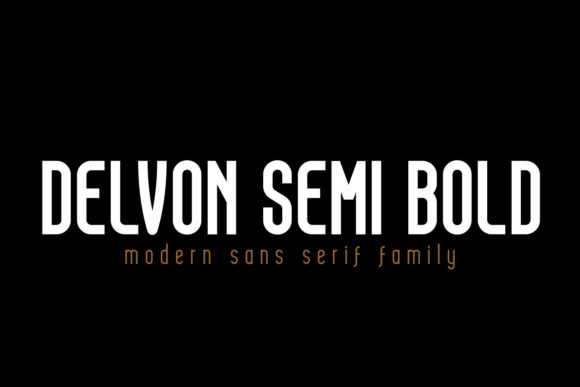
Feast your eyes on Delvon Semi Bold, a sans serif font that exudes charm and sophistication. Its meticulously crafted letterforms dance across the page, captivating your audience with their elegant simplicity.
Unleash your creativity with Delvon Semi Bold, the perfect font for song titles. Its bold, confident strokes command attention, ensuring your music's name leaves a lasting impression. Whether it's a soulful ballad, a rocking anthem, or a catchy pop tune, Delvon Semi Bold amplifies the essence of your song, making it unforgettable.
Step into a world of endless possibilities with Delvon Semi Bold, a font that complements a myriad of projects. Its versatility knows no bounds, effortlessly enhancing everything from logos and branding to social media graphics and website designs. With Delvon Semi Bold, your creations will shine brighter than the stars, leaving a trail of brilliance wherever they go.
Immerse yourself in the beauty of Delvon Semi Bold, a font that evokes emotions and ignites imaginations. Its smooth curves and crisp lines create a visual symphony that captivates the senses. Let your words dance with Delvon Semi Bold, expressing your thoughts and ideas with a touch of grace and elegance.
Don't settle for ordinary fonts that blend into the background. Choose Delvon Semi Bold, the font that demands attention and makes a statement. Its bold personality shines through, adding a touch of magic to every project. Unleash your inner artist and let Delvon Semi Bold transform your creative visions into breathtaking realities.